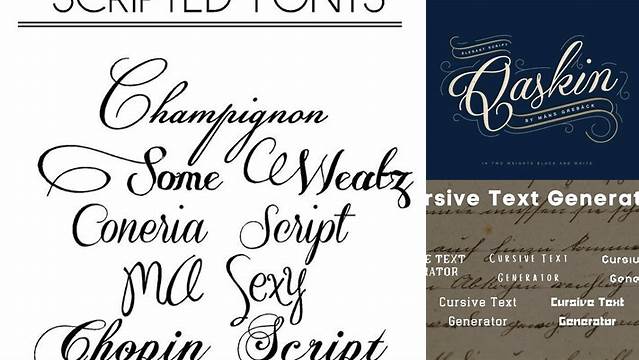
Free & Fancy Cursive Font Generator: Create Stunning Text
Hey guys! Ever wanted to add a touch of elegance and personality to your text? Maybe you're working on a special invitation, designing a cool logo, or just want to spice up your social media posts. Well, you're in luck! This article is all about the fancy cursive font generator free, the ultimate tool for transforming your boring, everyday words into something truly spectacular. We'll dive into the world of cursive fonts, explore how these generators work, and most importantly, show you how to find the perfect one for your needs. Get ready to unleash your inner artist and make your text stand out from the crowd! So, let's get started and discover the magic of cursive fonts!
Understanding the Allure of Cursive Fonts
Cursive fonts, also known as script fonts, have a certain je ne sais quoi that instantly grabs attention. They evoke feelings of sophistication, creativity, and a touch of vintage charm. They are like the haute couture of the font world! Think about it: a well-crafted cursive font can transform a simple greeting card into a heartfelt message, a bland logo into a memorable brand, or a basic social media post into something visually appealing. The graceful curves and flowing lines of these fonts add a personalized touch that's hard to ignore. They can be used to make the text look more personalized. But why are cursive fonts so popular? Well, they offer something that other fonts often can't: a human touch. In a world dominated by clean, digital fonts, a cursive font can feel more handmade, more personal. This can be especially effective when you want to connect with your audience on an emotional level. Moreover, they are very useful in invitations, wedding cards, and many special occasions. They can add a touch of elegance and sophistication that is hard to achieve with other types of fonts. They are also very versatile. You can use them in a variety of design projects, from logos to websites to social media graphics. They provide a unique way to express your creativity. Whether you're a seasoned designer or a total beginner, understanding the allure of cursive fonts is the first step towards using them effectively. They are your secret weapon. You can use it to elevate your design and communication. They're a great way to add some flair to any project, whether it's for personal use or something more professional. They offer a unique way to express your creativity and make your text visually appealing. They can also add a touch of personality and character to your work.
The Historical Significance and Modern Appeal of Script Fonts
Cursive fonts have a rich history that dates back centuries, evolving from the elegant handwriting styles of scribes and calligraphers. These fonts, which were once the standard for formal documents and artistic expression, have made a remarkable comeback in the digital age. They are not just visually appealing; they also carry a sense of tradition and craftsmanship that resonates with audiences. From the delicate flourishes of the Renaissance to the bold strokes of modern calligraphy, the history of script fonts is as diverse as the fonts themselves. They have been used in countless ways throughout history, from the elegant letters of the elite to the everyday writing of common people. Their enduring appeal lies in their ability to evoke a sense of history, art, and personal touch. In a world saturated with digital interfaces, script fonts offer a welcome contrast. They remind us of the beauty of human expression and the value of handcrafted design. Today, these fonts can be used to add a touch of sophistication to any design project, from logos to websites to social media graphics. Whether you're a seasoned designer or a total beginner, understanding the history and modern appeal of script fonts is key to using them effectively. They are your secret weapon. They can elevate your design and communication, adding a touch of flair to any project, whether it's for personal use or something more professional. They offer a unique way to express your creativity and make your text visually appealing.
Exploring the World of Free Cursive Font Generators
Alright, let's get down to the nitty-gritty: how do you actually use a fancy cursive font generator free? Well, these tools are generally super user-friendly. Most generators have a simple interface where you can type in your text, and the tool instantly transforms it into a beautiful cursive style. You'll often have a selection of different font styles to choose from, ranging from elegant and classic to modern and quirky. It's like having a digital calligraphy pen at your fingertips! The best part? These generators are usually free and accessible online. There are tons of them out there, ready to help you create stunning text in seconds. You won't need any special design software or technical skills. Just a computer or mobile device with an internet connection, and you're good to go. The generators often offer customization options. You might be able to adjust the size, color, and spacing of your text. Some generators even let you add special effects like shadows and outlines. It's a great way to experiment with different looks and find the perfect style for your project. Whether you're looking for a formal cursive font for a wedding invitation or a playful script for a social media post, a free cursive font generator is the perfect tool for the job. They are also great for quickly creating text-based graphics, such as logos, banners, or quotes. They allow you to add a touch of personality and character to your work. And with a wide variety of fonts to choose from, you're sure to find one that suits your style. They are a great tool for any designer or anyone who wants to create stunning text. Whether you're a beginner or an experienced designer, these generators are easy to use.
Comparing Popular Free Cursive Font Generator Options
When it comes to free cursive font generators, you've got a whole buffet of options to choose from! Each generator offers its own unique features and font styles. Some generators stand out due to their user-friendly interfaces and diverse font libraries. Others are known for their advanced customization options or seamless integration with other design tools. Some of the most popular free cursive font generators offer a wide range of font styles, from classic to modern. They often include customization options like adjusting font size, color, and spacing. Some even let you add special effects like shadows and outlines. These generators are a great starting point, providing a wide array of options to fit your design needs. Others excel in their ease of use, with simple, intuitive interfaces. These generators are perfect for beginners or anyone looking for a quick and easy way to create cursive text. They offer a streamlined experience, allowing you to generate text in seconds without any technical hassle. And then there are those with advanced features. Some generators integrate with other design tools. They give you even more control over your text. They allow you to fine-tune every aspect of your design. You can also export your text in various formats. Finding the best generator involves exploring your options. Experiment with different generators, compare their features, and find the one that best suits your needs and preferences. With so many great options available, you're sure to find a generator that helps you create stunning cursive text.
Tips for Choosing the Right Free Cursive Font Generator for Your Needs
Choosing the right fancy cursive font generator free is essential for achieving the desired look for your project. Think about what you need the font for and the kind of impression you want to make. First, consider the project itself. Are you working on a formal invitation, a fun social media graphic, or something else entirely? Different projects call for different font styles. Next, consider your design style. Do you prefer a classic, elegant look, or something more modern and playful? There's a cursive font out there to match any aesthetic. Check the font library. Does the generator offer a good selection of fonts that fit your style? Also consider the customization options. Look for generators that allow you to adjust the size, color, and spacing of your text. Some generators also offer more advanced features like shadows and outlines. That's a great tool for achieving unique text effects. Before committing to a generator, read reviews and check out examples of its work. This will give you an idea of the font quality and the user experience. You also want to make sure the generator is easy to use and compatible with your devices and software. By keeping these tips in mind, you can find a generator that helps you create stunning cursive text for any project. You'll be able to create text that's both visually appealing and perfectly aligned with your design goals. It will help you achieve the desired look.